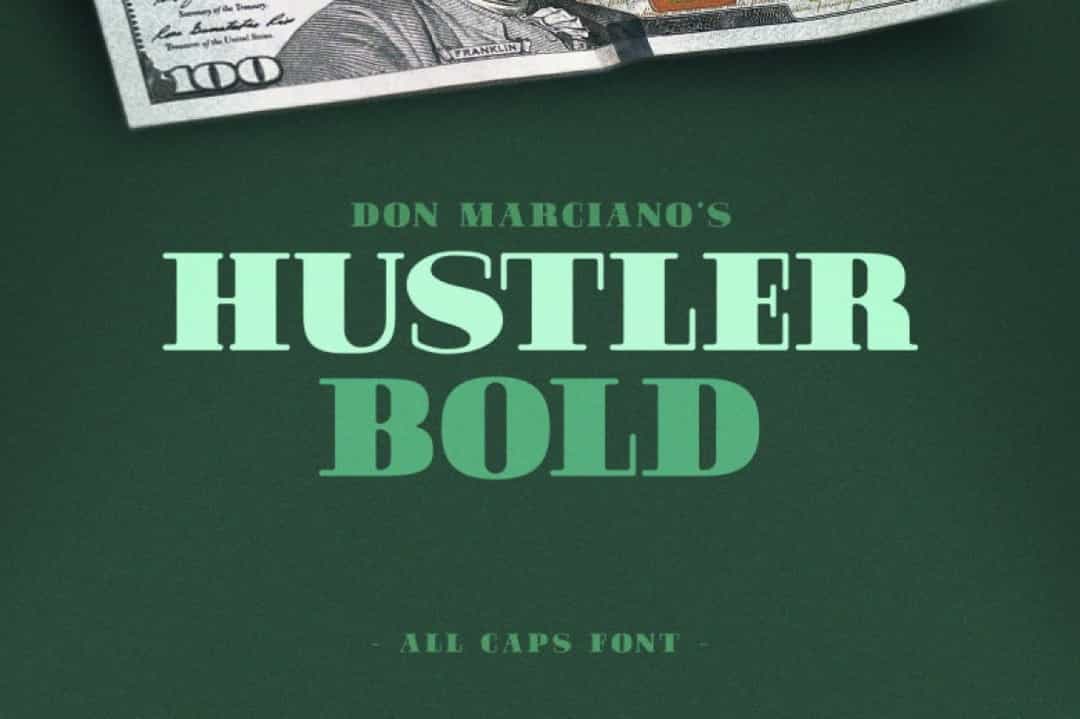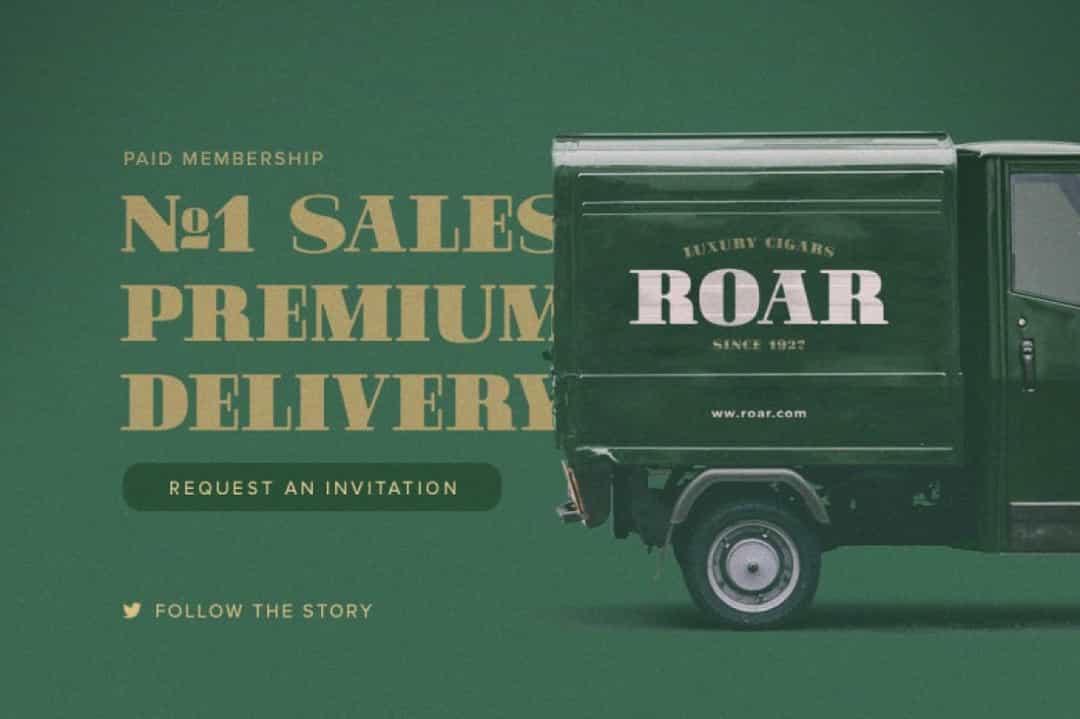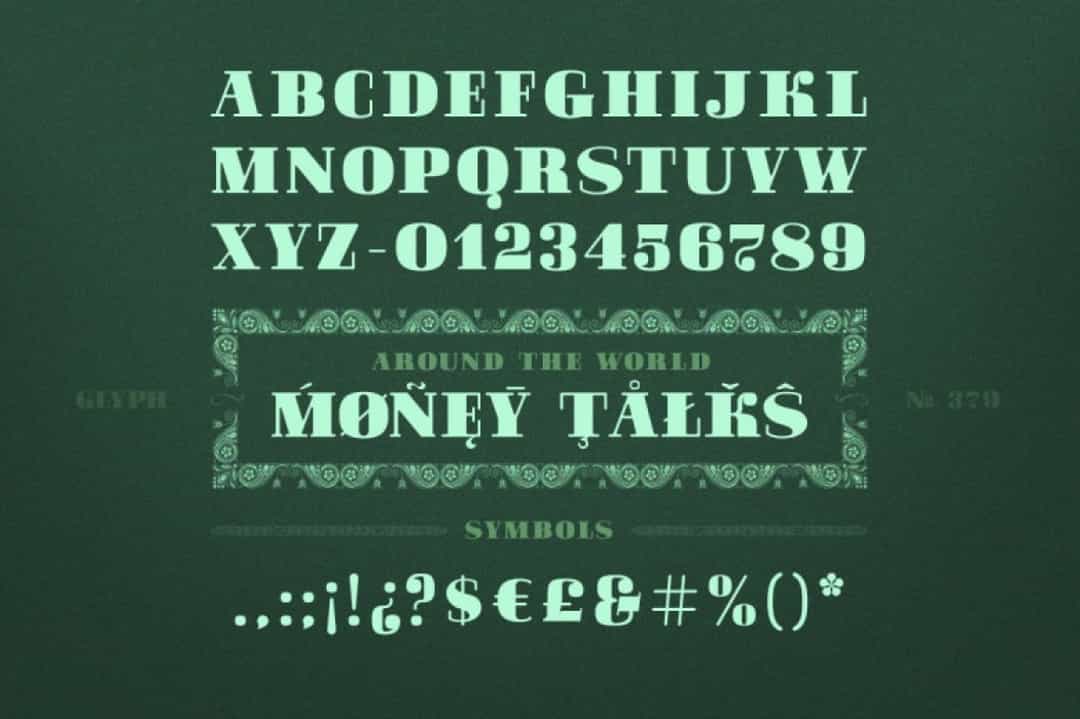
Hustler is an impressive serif typeface designed to convey short, memorable words with modernity and flair over traditional lines. This font exudes an “I’m there” vibe, conveying every message with strength and grace.